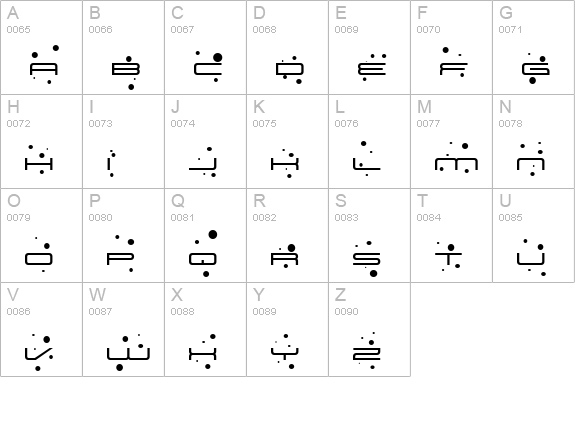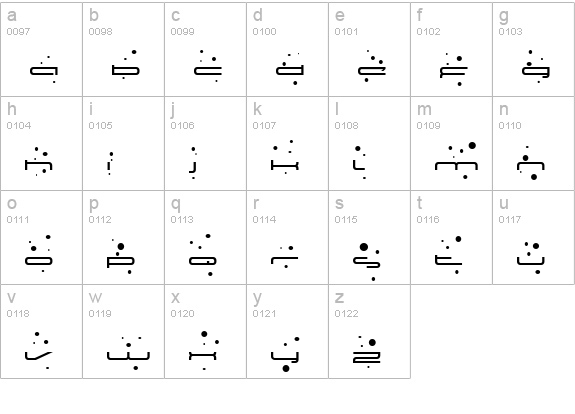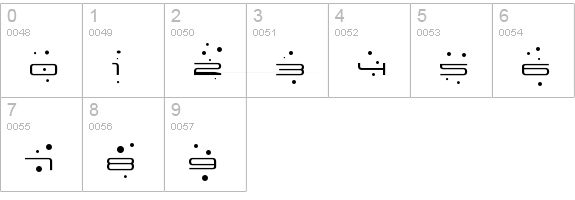
Neutronica outthere Font Details
Neutronica Outthere font is a stunning display typeface that exudes a futuristic and otherworldly vibe. Its sharp angles and sleek design give it a cutting-edge look that is perfect for projects that aim to stand out. The unique geometric shapes of Neutronica Outthere make it a versatile choice for a variety of design applications, from branding to digital art. This font is available for free download at FontsMarket.com, making it easily accessible to designers and creatives looking to add a touch of modernity to their projects. Whether you're working on a logo, website, or poster, Neutronica Outthere font is sure to make a bold statement and captivate the audience. Embrace the future with Neutronica Outthere font and let your creativity soar.